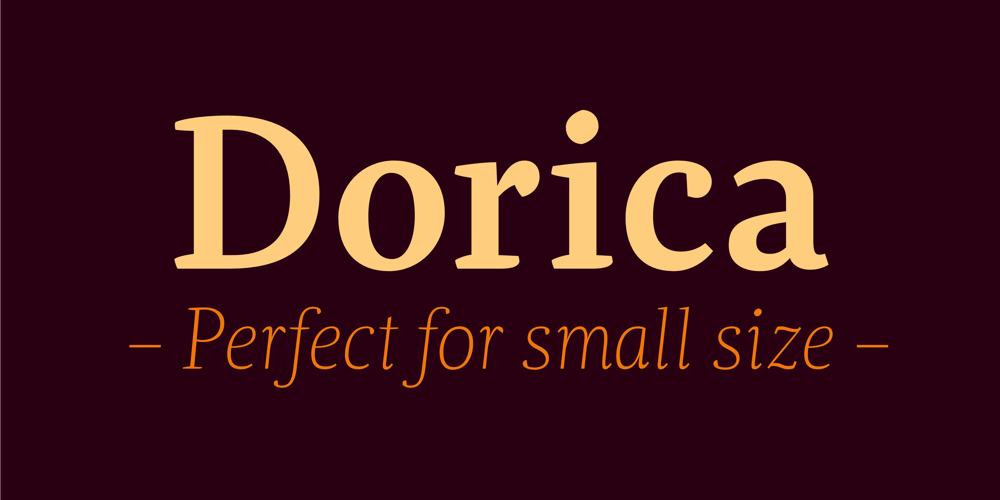
Dorica Font Family was designed by Nico Inosanto and published by Nootype. Dorica contains 14 styles and family package options. Dorica is a serif font family optimized for small sizes. It is very sober and simple, with a classic appearance at first sight but the curves and details like the serifs make it very different. The name is inspired by Doric, the simplest of the three orders of organizational systems of ancient Greece. The large x-height makes it perfect for use in magazines and every context which calls for text in small sizes. Dorica comprises 14 styles, from Thin to Black with their corresponding italics. Each font includes small caps, very useful for books, plus OpenType features such as proportional figures, stylistic alternates, tabular figures, numerators, superscript, denominators, scientific inferiors, subscript, ordinals, fractions and many ligatures. The extended character set supports Central, Eastern and Western European languages. The range of styles provides great flexibility for both text and titling, and the ligatures make for an original and creative appearance.